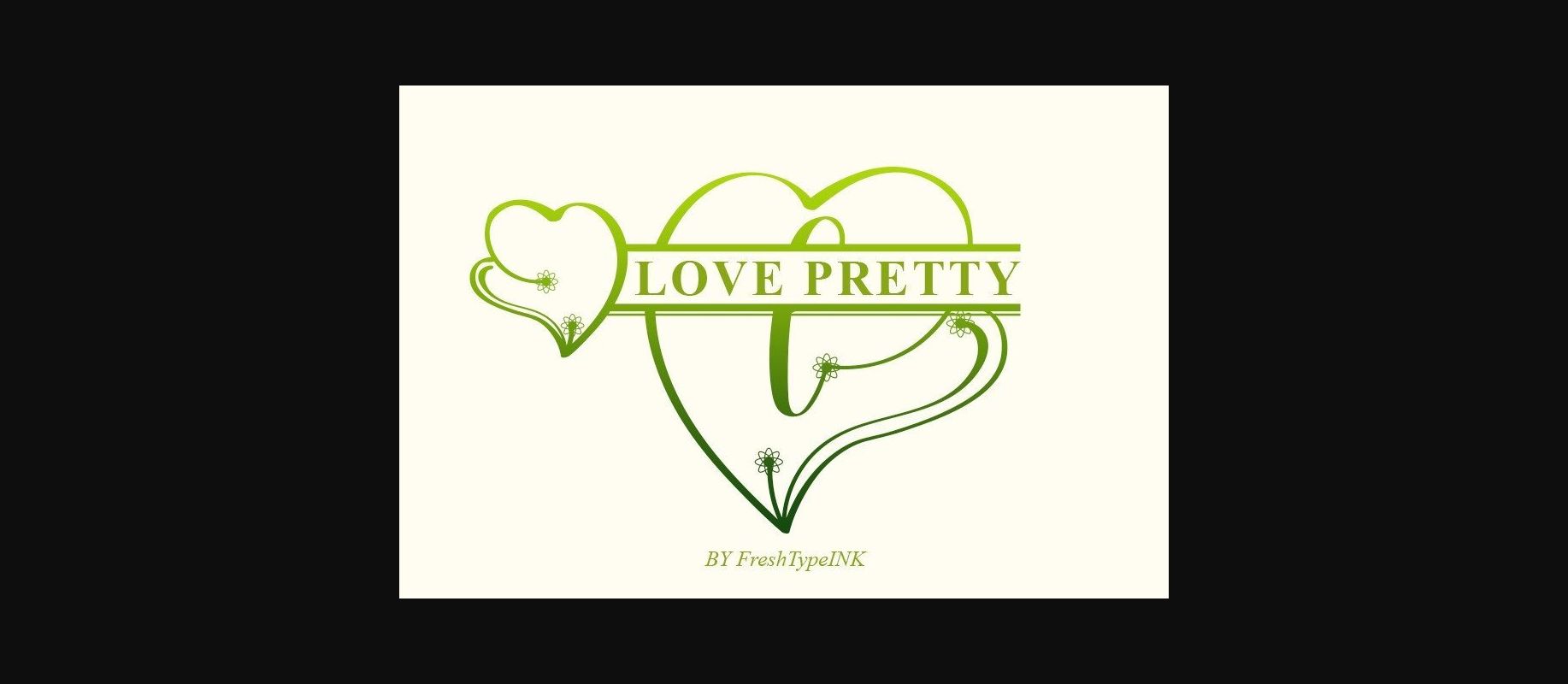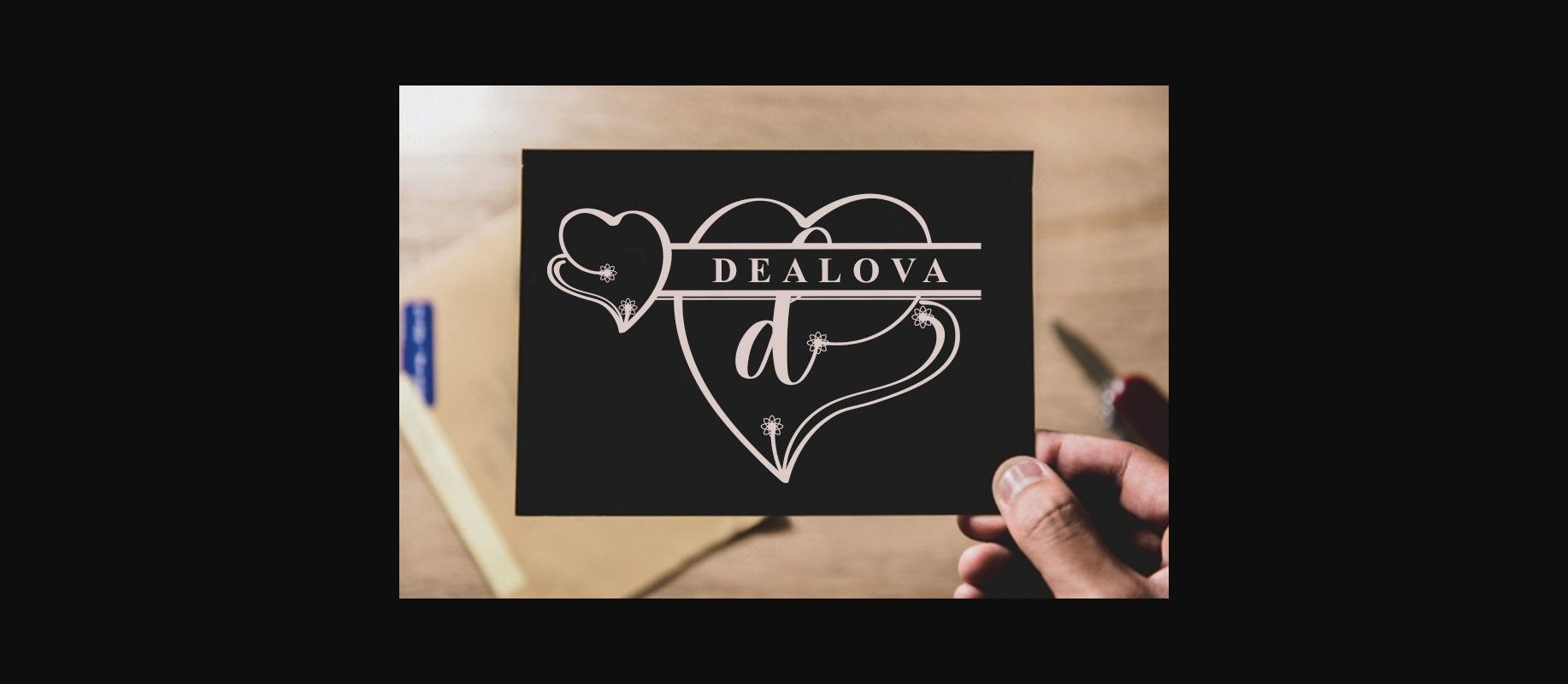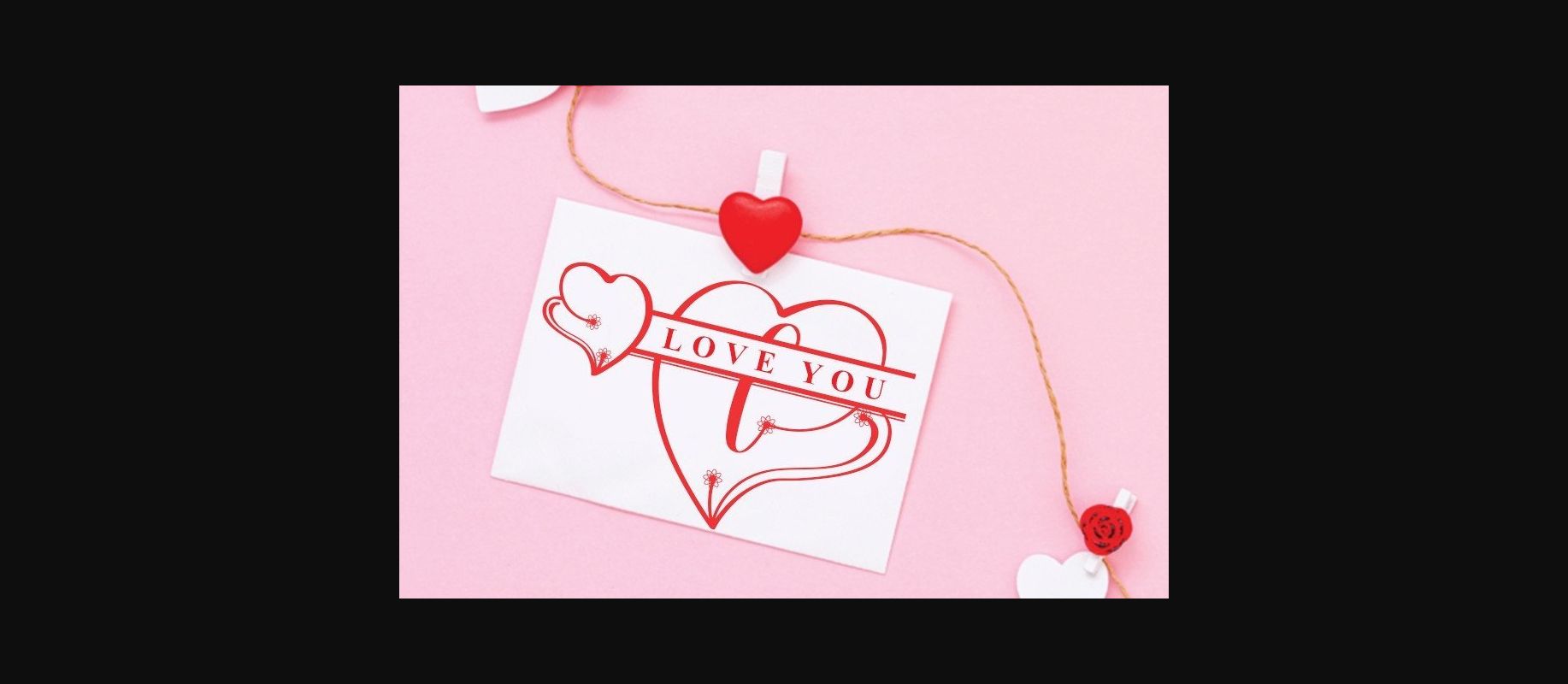
About Love Pretty Monogram Font
Love Pretty Monogram is a beautiful and refined monogram decorative font. Classy and modern, it is perfect for logos, branding, invitations, stationery, wedding designs, social media posts, and much more!